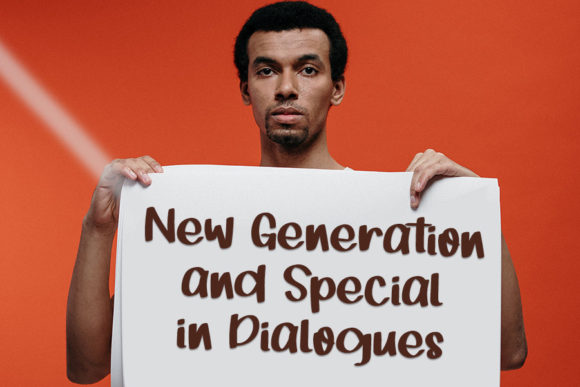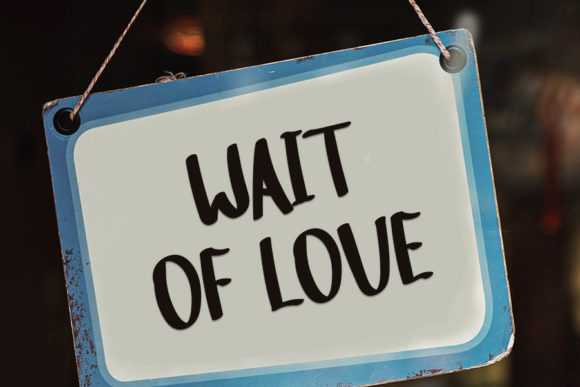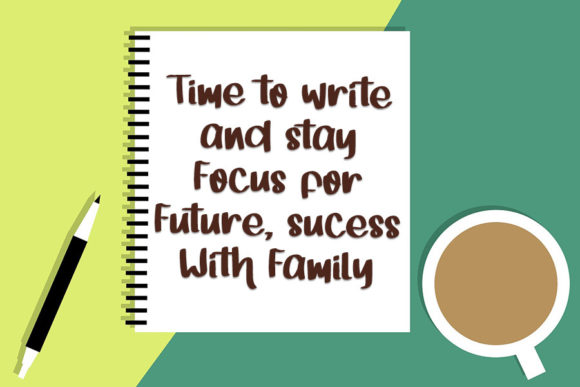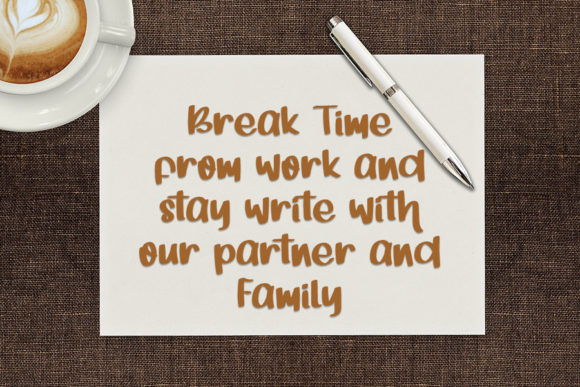
Discover the Charm of Fishlove Font: Elevate Your Designs with a Cool and Friendly Handwritten Style
Are you on the hunt for a font that exudes a relaxed and sweet vibe, perfect for fashion branding or editorial designs? Look no further than Fishlove Font! This cool and friendly handwritten font is designed to add a touch of personality to your projects, making them stand out with its smooth curves and effortless charm.
What Makes Fishlove Font So Special?
Fishlove Font is a unique and versatile typeface that boasts a relaxed and sweet style, making it an excellent choice for designers and crafters looking to add a personal touch to their work. Its smooth curves and friendly demeanor make it perfect for a wide range of applications, from fashion branding and editorial designs to social media graphics and more.
Key Features of Fishlove Font
- Cool and Friendly Style: Fishlove Font features a relaxed and sweet style that’s perfect for designers looking to add a touch of personality to their work.
- Smooth Curves: The font’s smooth curves give it a friendly and approachable feel, making it perfect for fashion branding and editorial designs.
- Versatile: Fishlove Font is versatile and can be used for a wide range of applications, from digital designs to print materials.
- Easy to Read: The font is easy to read, making it perfect for body text and headlines.
Perfect for Fashion Branding and Editorial Designs
Fishlove Font is particularly well-suited for fashion branding and editorial designs. Its relaxed and sweet style makes it perfect for:
- Fashion Logos: Create a stunning logo for your fashion brand that exudes style and sophistication.
- Editorial Headlines: Use Fishlove Font to create eye-catching headlines for your editorial designs, such as magazine covers, blog posts, and more.
- Social Media Graphics: Add a touch of personality to your social media graphics with Fishlove Font, making them stand out in a crowded feed.
Tips for Using Fishlove Font
Here are some tips for getting the most out of Fishlove Font:
- Pair it with Bold Fonts: Pair Fishlove Font with bold fonts to create a striking contrast and add visual interest to your designs.
- Experiment with Colors: Fishlove Font looks great in a variety of colors, so don’t be afraid to experiment and find the perfect hue for your design.
- Use it for Headlines and Body Text: Fishlove Font is easy to read, making it perfect for both headlines and body text.
In conclusion, Fishlove Font is a cool and friendly handwritten font that’s perfect for designers and crafters looking to add a touch of personality to their work. Its smooth curves and relaxed style make it perfect for fashion branding and editorial designs. With its versatility, ease of use, and charming style, Fishlove Font is sure to become a favorite in your design arsenal.